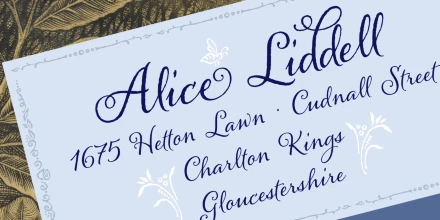
Caprizant Font Family
Caprizant
Caprizant is a lively, upright script based on letters inked with a pointed pen. For display settings, titles, and identity work, Caprizant shines with even more energy and elegance. Customize it using one of the 337 swashes, three sets of capitals, and 20 ornaments. Alternates of every letter create a fully connected or unconnected look, plus dozens of ligatures, and contextual alternates provide a convincingly human variation.